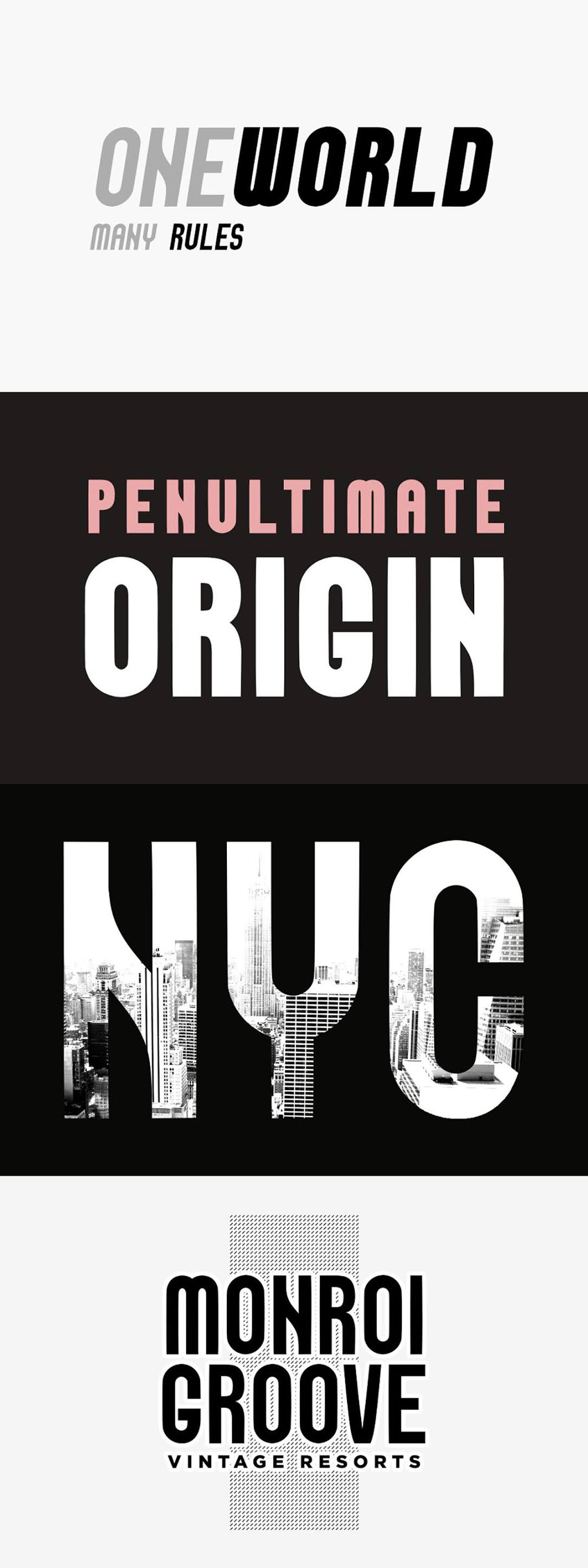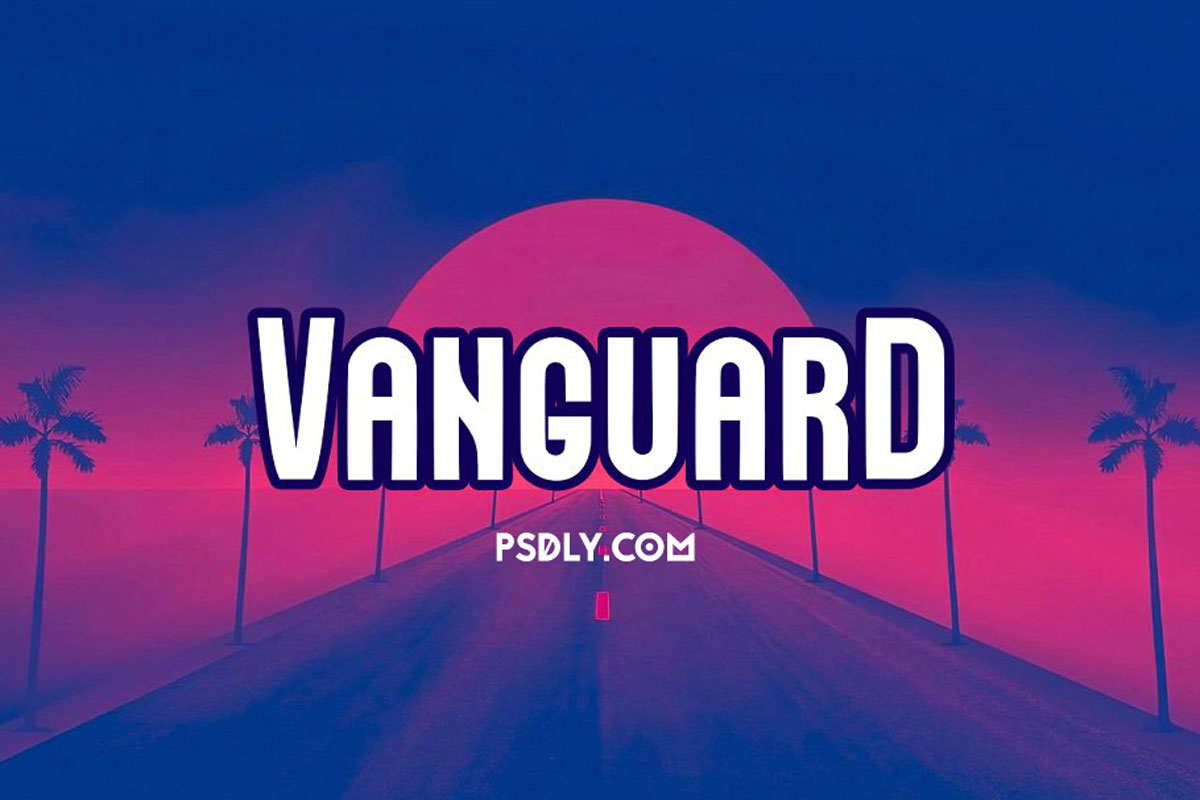
VANGUARD NeoRetro Display Typeface 5262644
Creativemarket VANGUARD NeoRetro Display Typeface 5262644 Free Download. VANGUARD is a unique typeface inspired from the classic Neo Retro style but with an added touch of modernism bringing a balance in its design – Free Font Download.
The typeface is perfect for headlines, big text, branding, logotypes & display usage. This all-caps typeface is also perfect for creating great logos, promotional content and marketing graphics that lift the creative aspects of the design.